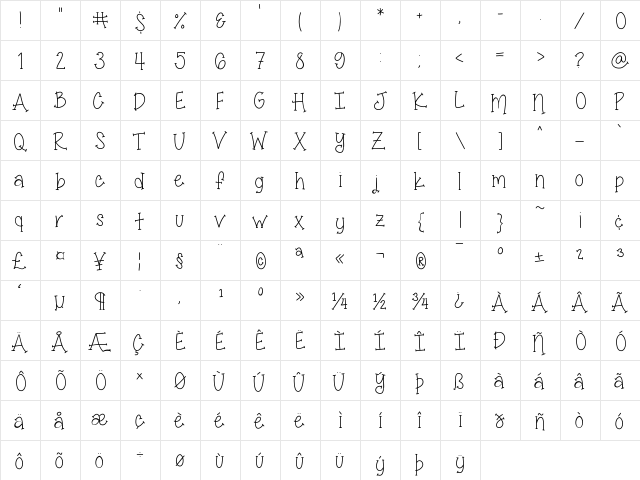
MissSmartyPants Medium
Design Context for MissSmartyPants Typeface
MissSmartyPants is a composed and adaptable typeface that performs quietly and consistently across a wide range of design contexts.